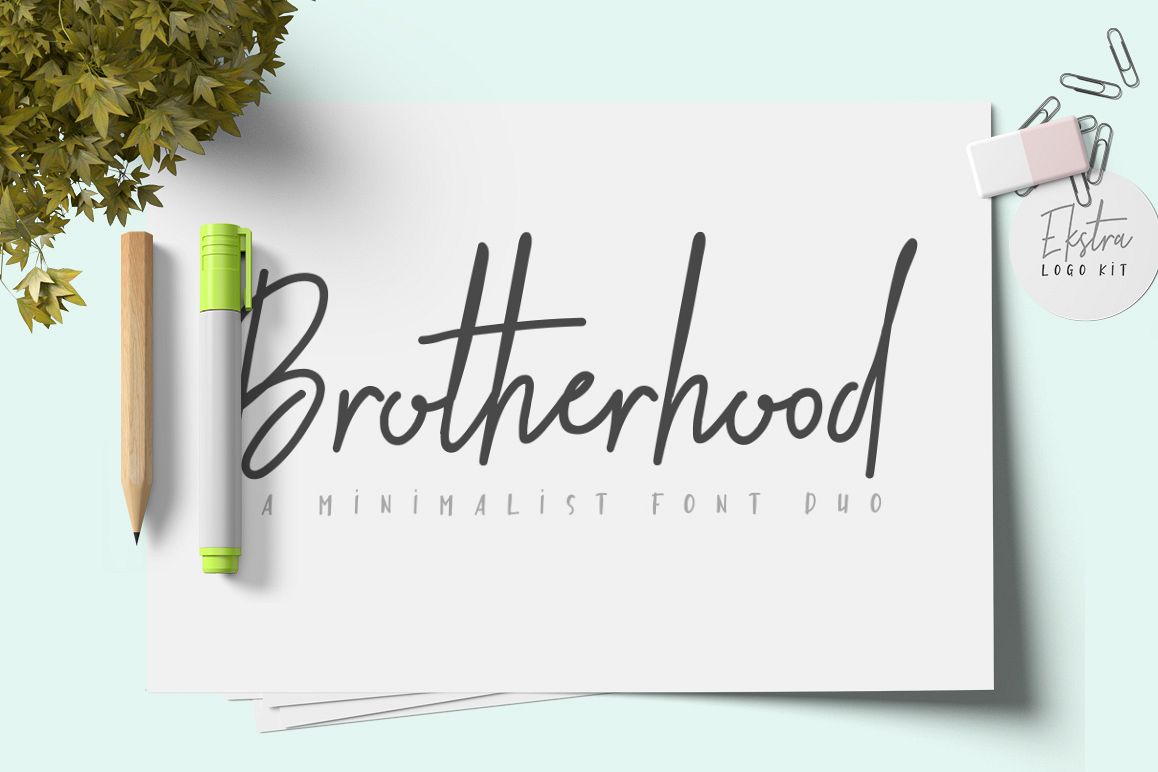
Brotherhood Font Duo + Ekstra
Brotherhood is an elegant font duo that combine beautiful rustic stylish script and caps into one gorgeous package. Brotherhood is gergeous typeface for logotype, website header, fashion design, wedding card design and any more.
1. Brotherhood (OTF & TTF) : Full set of lower & uppercase letters, numerals and a large range of punctuation.
2. Brotherhood Alternates (OTF & TTF) : This is a second version of Brotherhood, with a completely new set of both lower and uppercase characters. If you wanted to avoid letters looking the same each time to recreate a custom-made style, or try a different word shape, simply switch to this font for an additional layout option.
3. Brotherhood Caps (OTF & TTF) : This is a sans versionlof Brotherhood, you can use this option like if you want to create a combination of headers and subheaders.
Ligatures and Contextual Alternates are set for all lowercase characters (double-letters which flow more naturally). These are only accessible via software with opentype capability or a glyphs panel, e.g. Photoshop/Illustrator.Please do let me know what you observed, feedback & likes are constantly extremely welcomed and favored. More importantly, please don't hesitate to drop me a message when you have any concerns or queries.Now sufficient of reading this, it's time to try something different :)